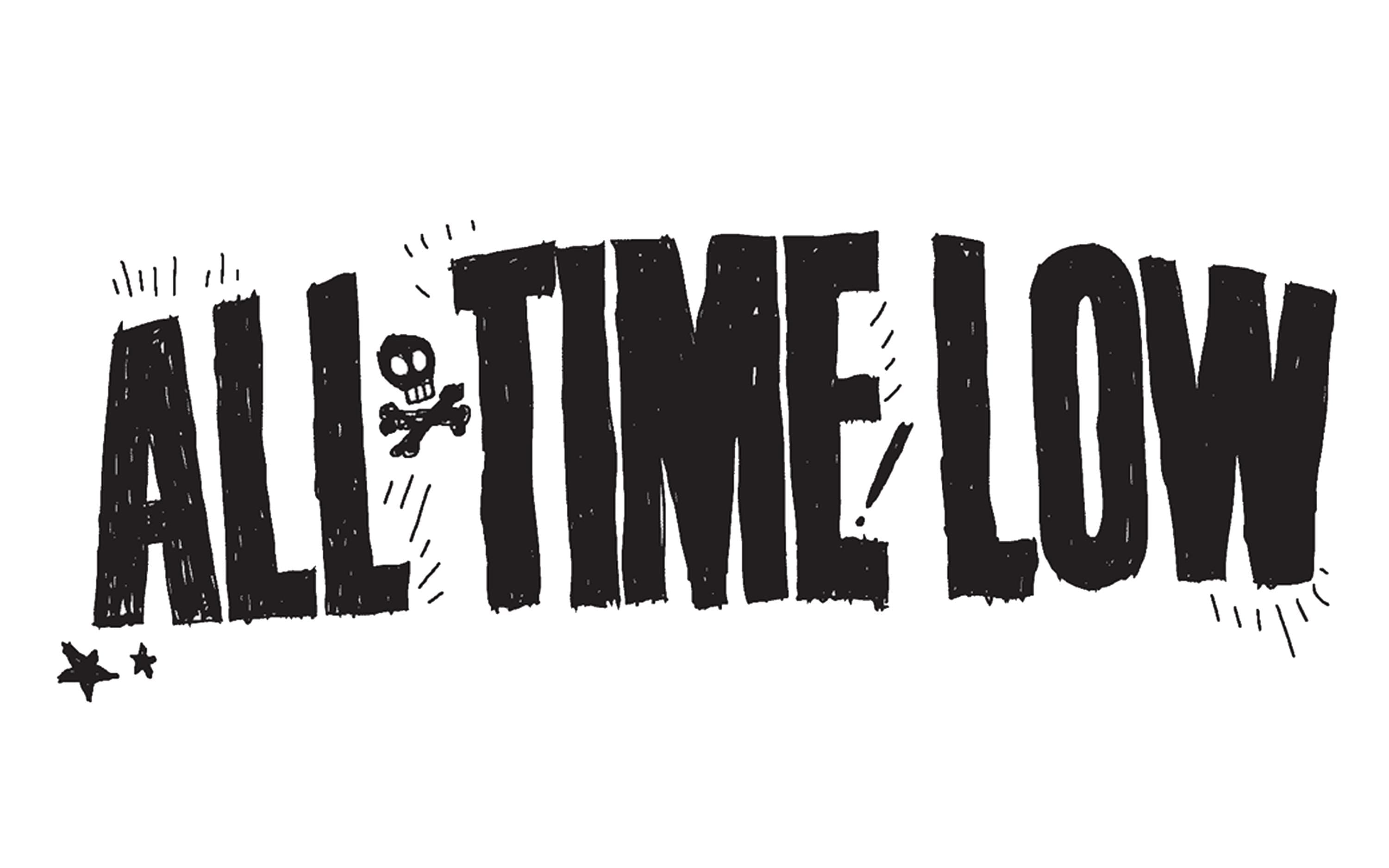
All Time Low Font
BandAll Time Low is an American pop punk band formed in 2003. They are known for their energetic pop punk and emo-influenced sound and lyrics that often address teenage life and relationships.
The All Time Low logo most likely features Block Gothic RR Bold ExtraCond font. Block Gothic RR is a sans-serif font characterized by its sturdy, block-like letterforms.